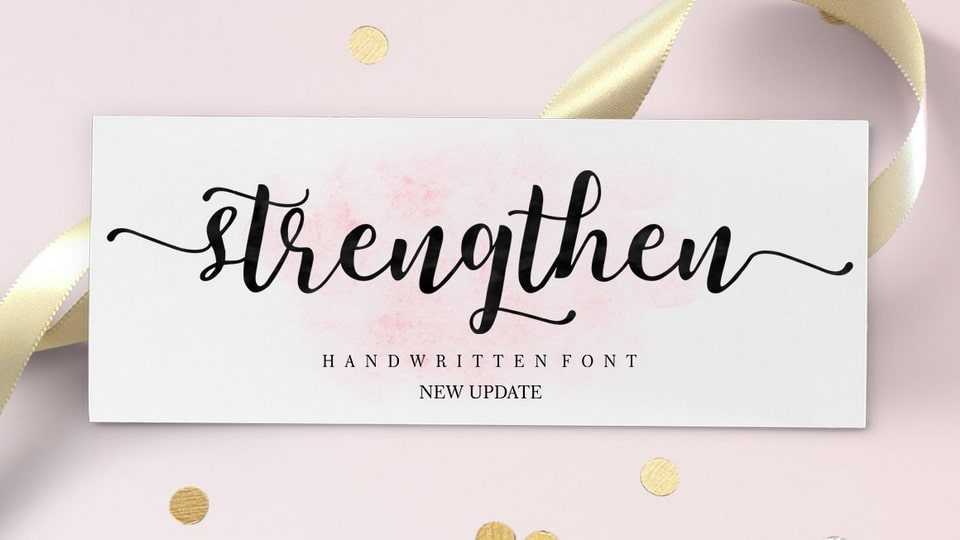
Download Strengthen Script font, a magical handwritten typeface carefully created with a touch of elegance. It features a varying baseline, smooth lines, gorgeous glyphs and stunning alternates.